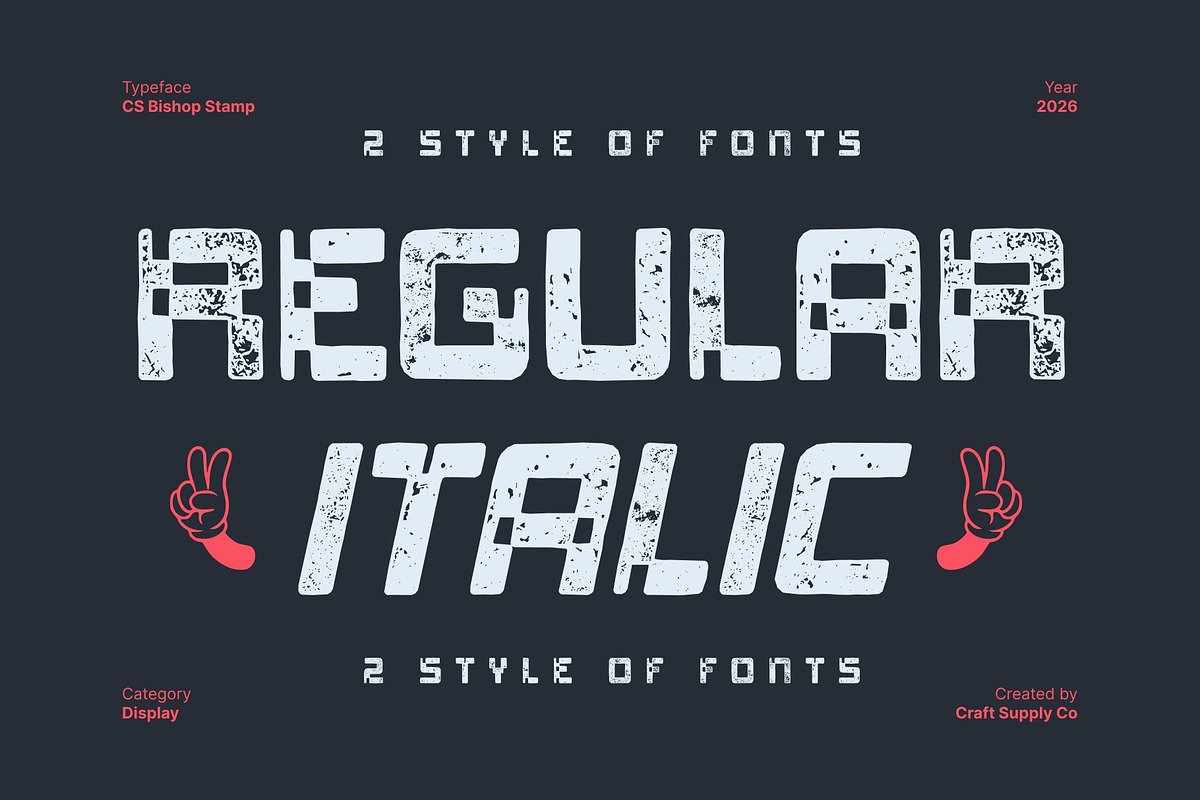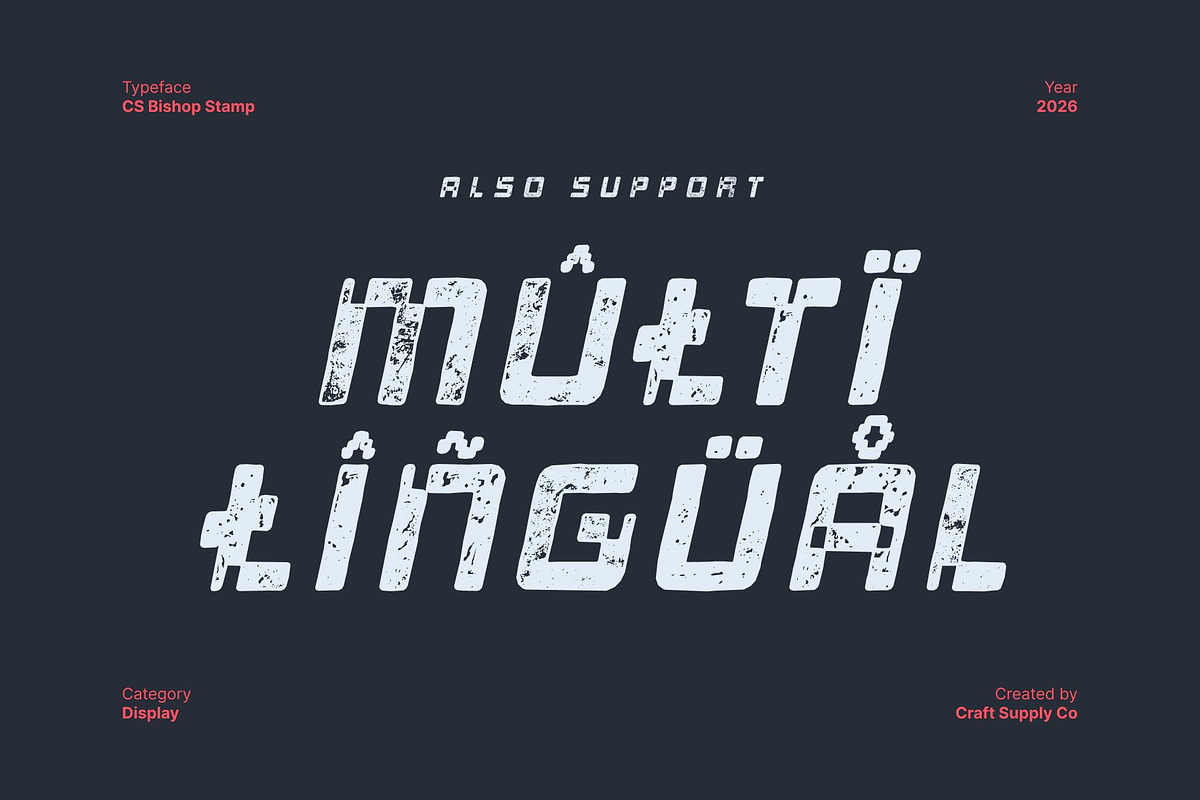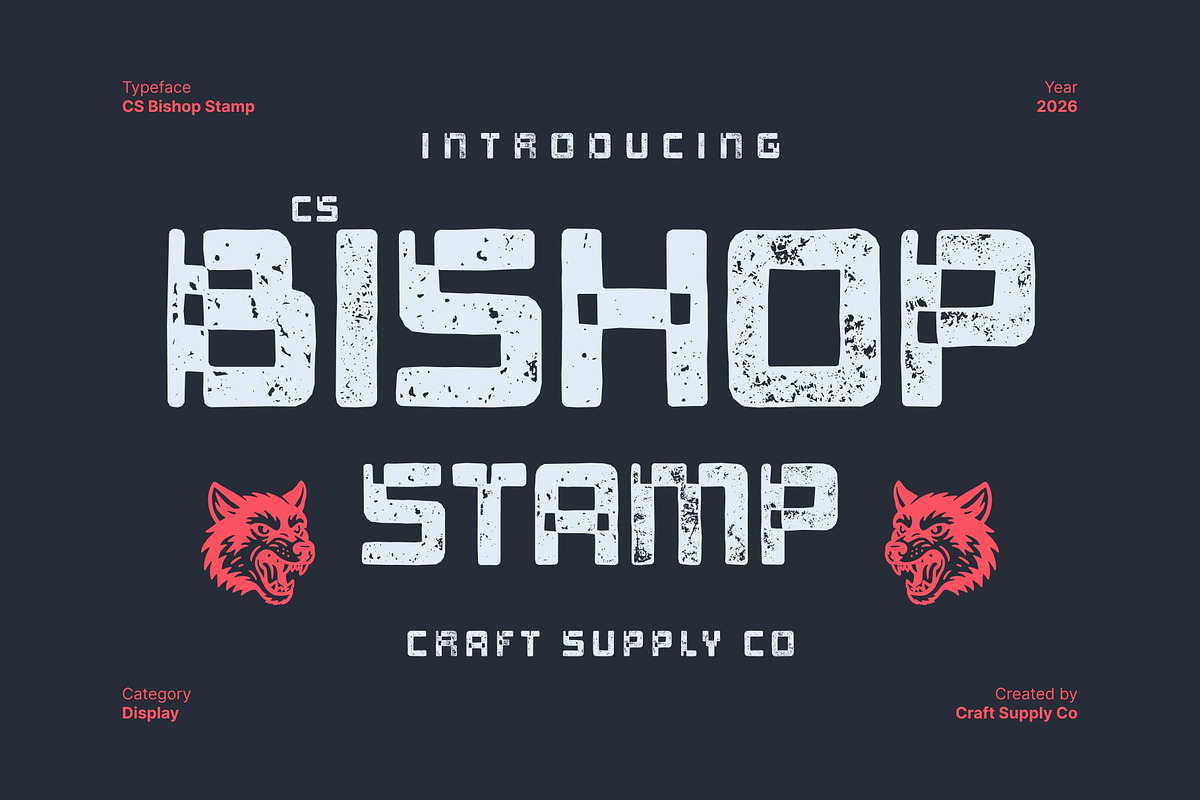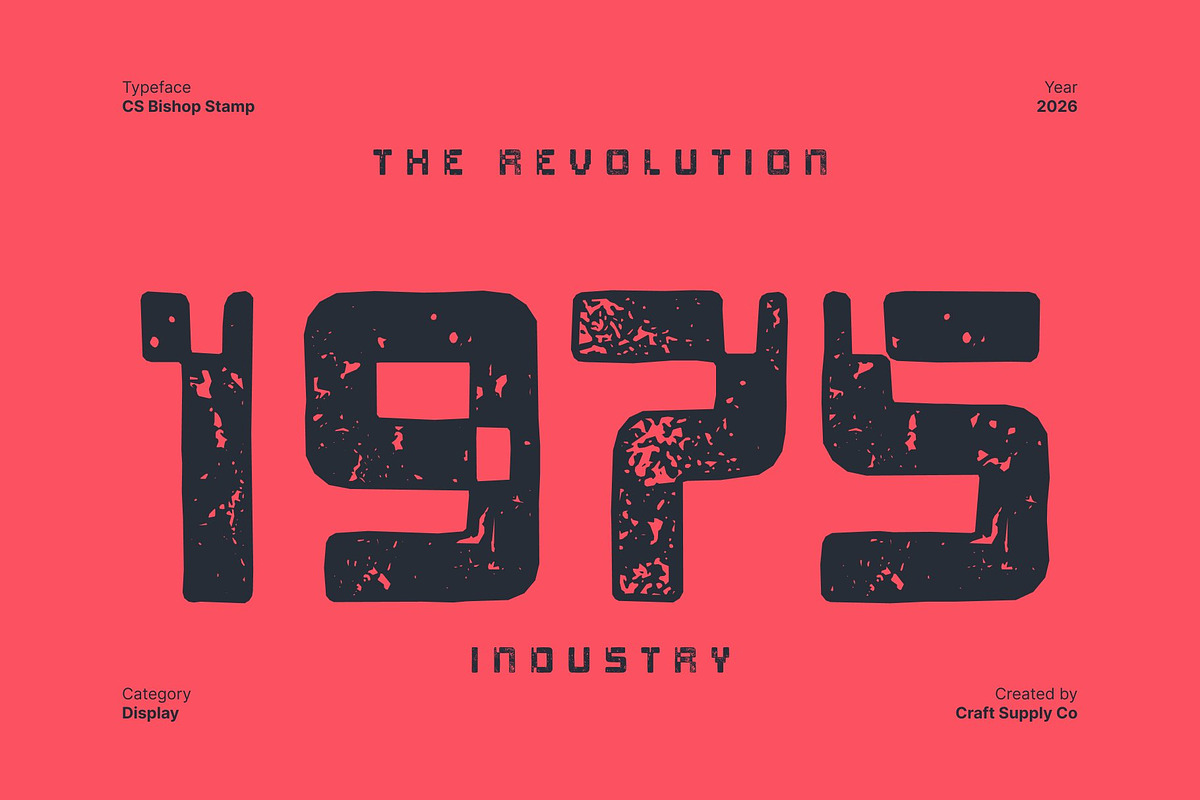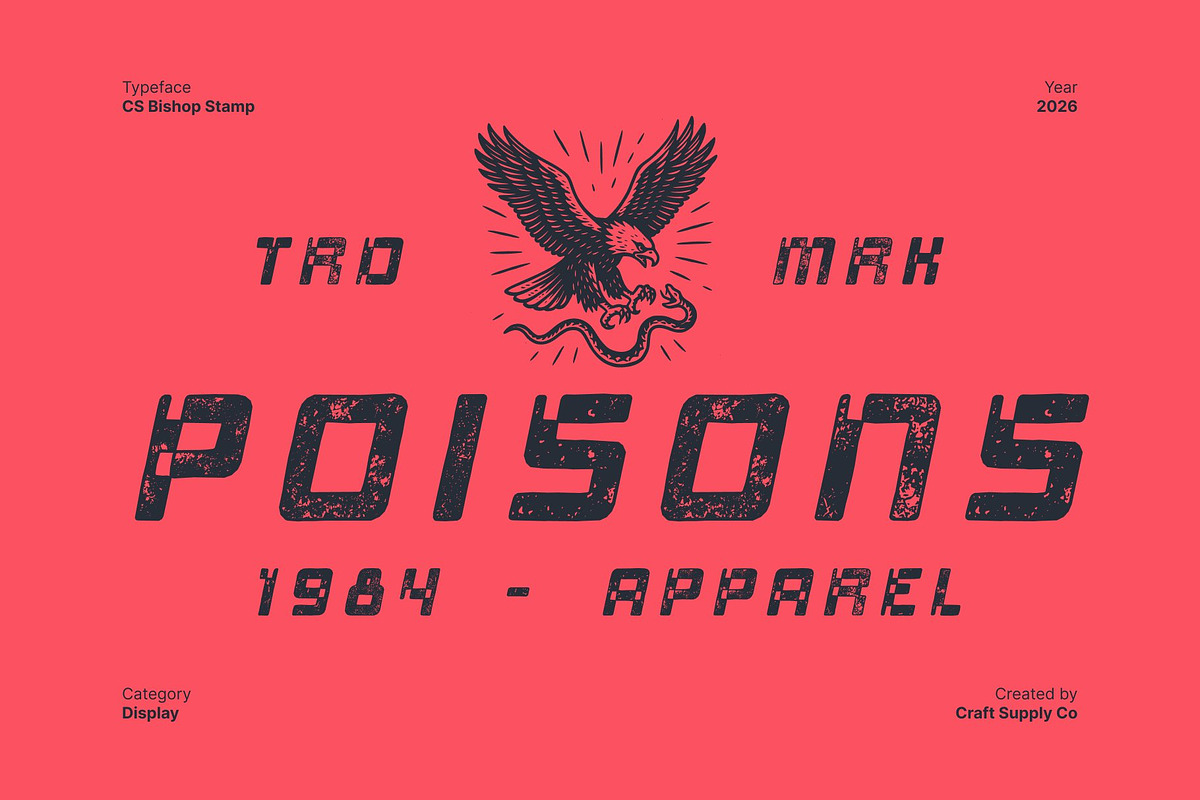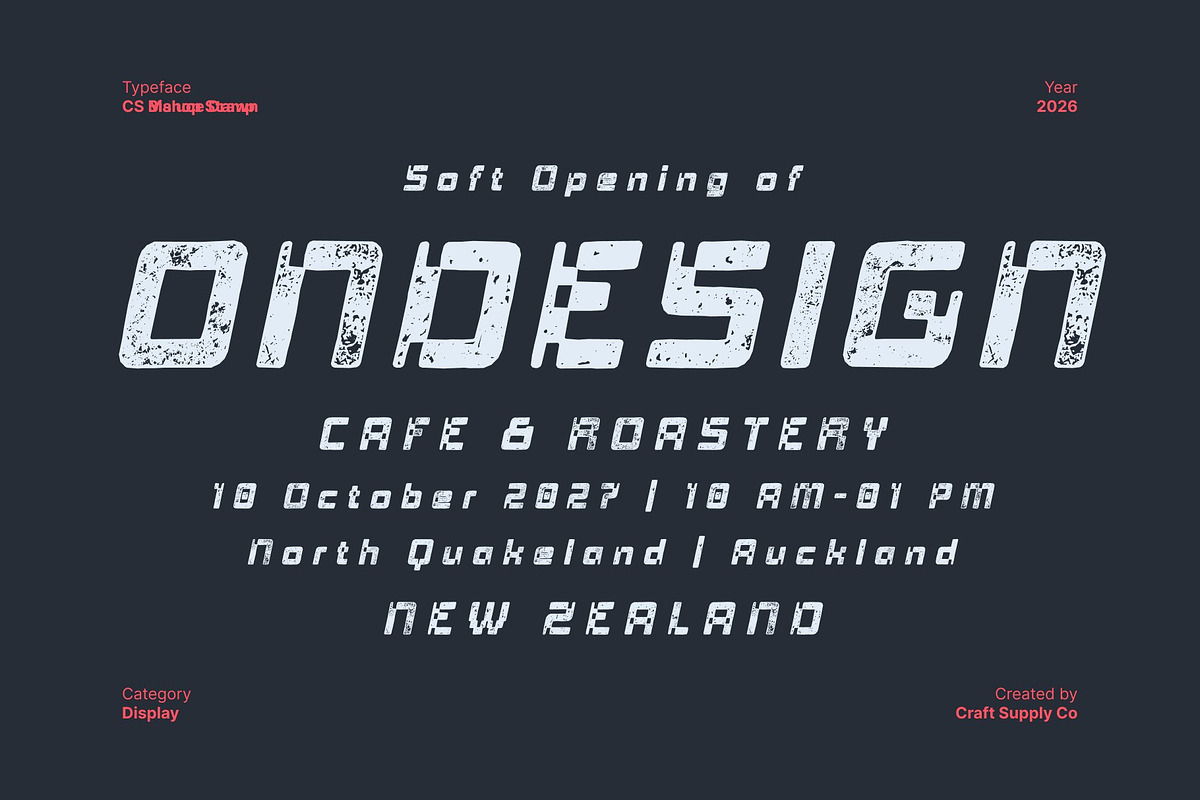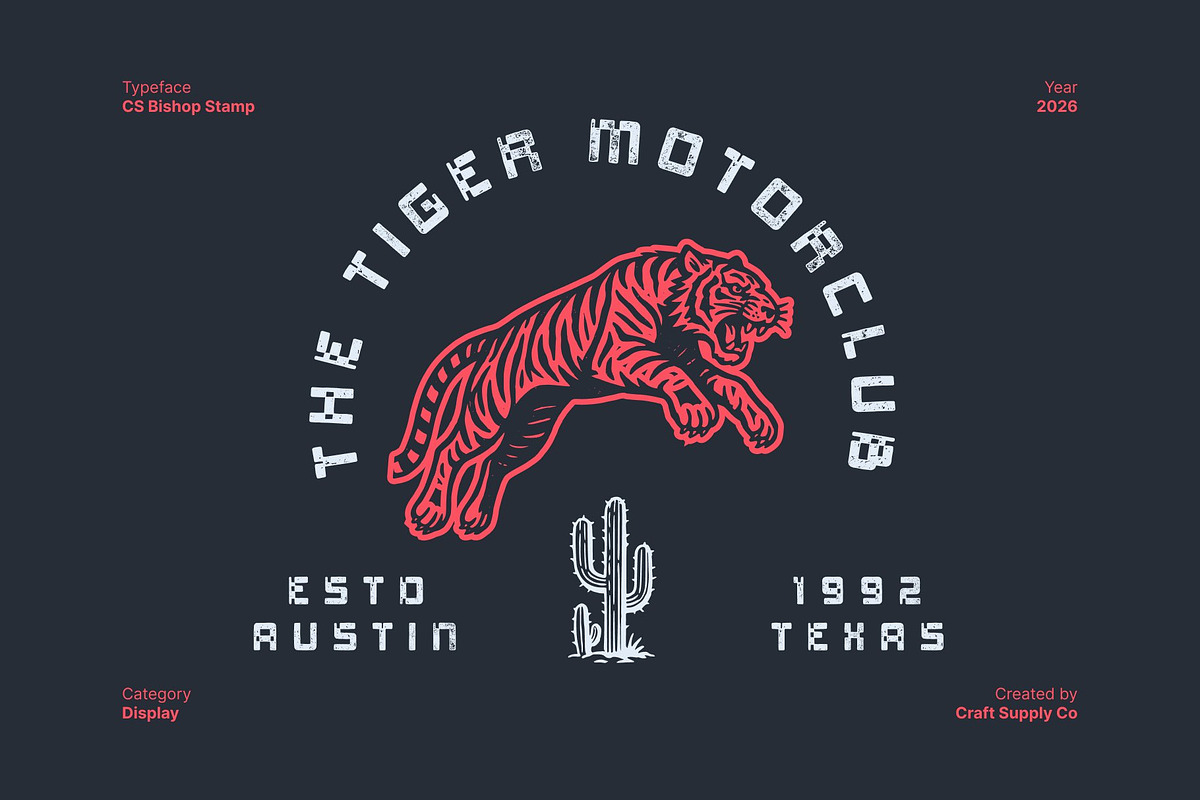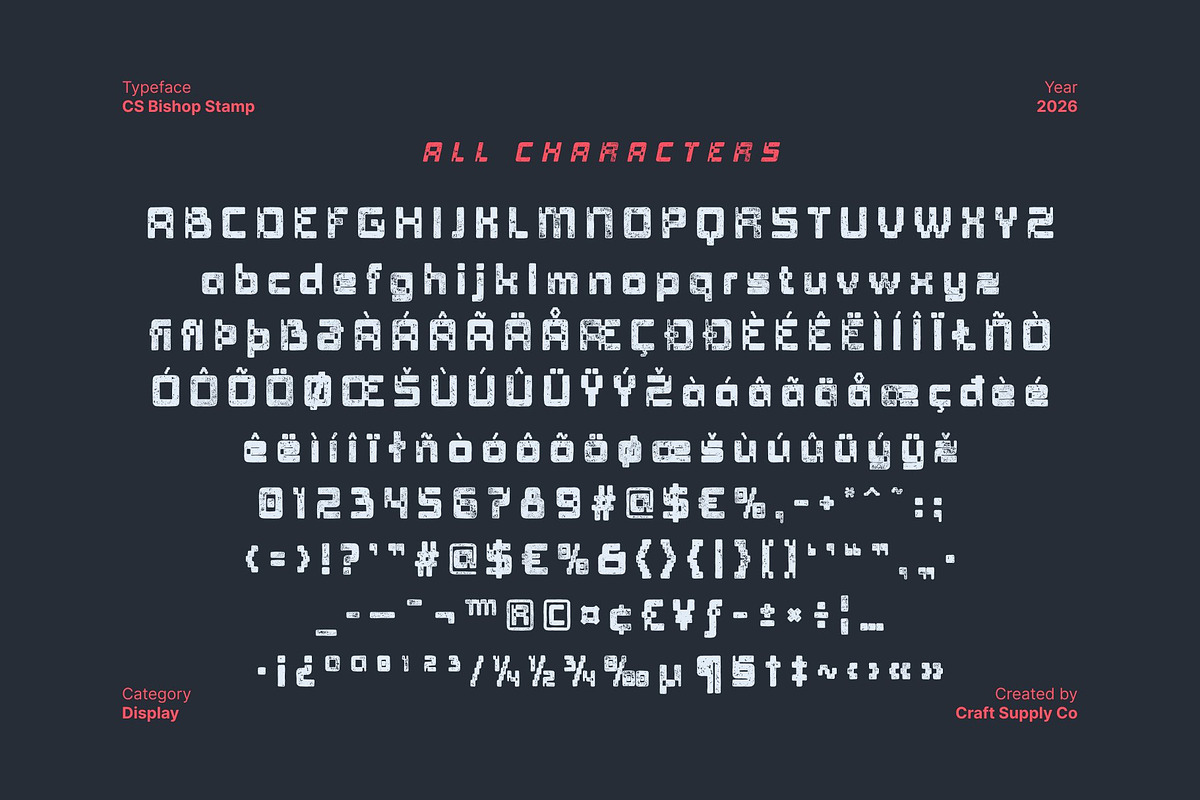
CS Bishop Stamp
CS Bishop Stamp – Retro Pixel Meets Vintage
A Nostalgic Blend of Pixel and Artistry This is a distinctive display font that fuses retro pixel aesthetics with expressive artistic character. Inspired by classic pixel typography, its blocky forms recall early digital screens, arcade games, and vintage computer graphics. This nostalgic foundation is reimagined with a handcrafted sensibility, creating a font that feels both retro and creatively alive.
Stamped Texture for Dynamic Energy Enhanced with a stamp effect, this font gains textured surfaces, rough edges, and subtle imperfections that add depth and movement. This stamped finish breaks the rigid precision of pixel forms, introducing a tactile, vintage print quality reminiscent of old posters, DIY zines, and screen-printed graphics. The result is a dynamic contrast between digital structure and analog texture.
A Creative Twist on Retro Nostalgia More than a traditional pixel font, offers a playful reinterpretation of retro design. Its combination of pixel geometry and distressed stamp texture brings personality, warmth, and artistic flair to every character. This makes it perfect for designers who want to evoke nostalgia while still delivering originality and visual impact.
Ideal for Experimental and Retro-Inspired Designs This font shines in posters, album artwork, game-inspired visuals, streetwear branding, packaging, and creative digital projects. Whether you’re crafting bold headlines or expressive layouts, this font transforms classic pixel nostalgia into a bold, textured statement filled with vintage charm and creative energy.